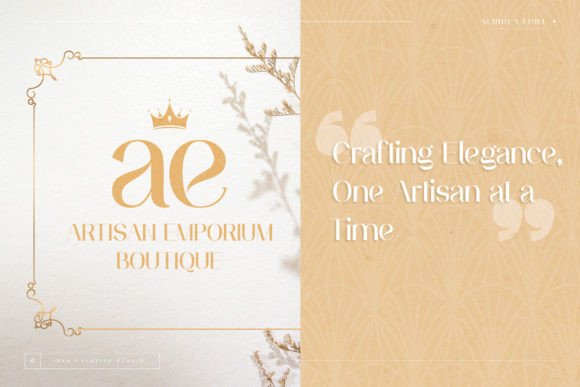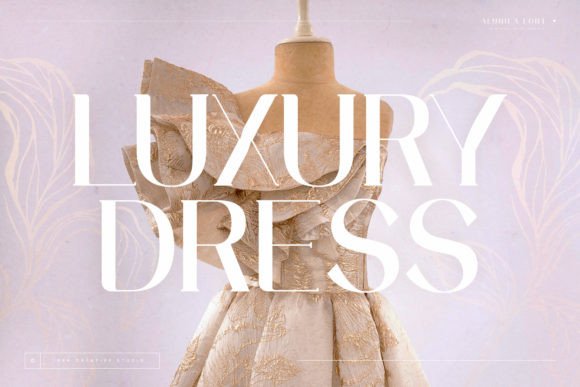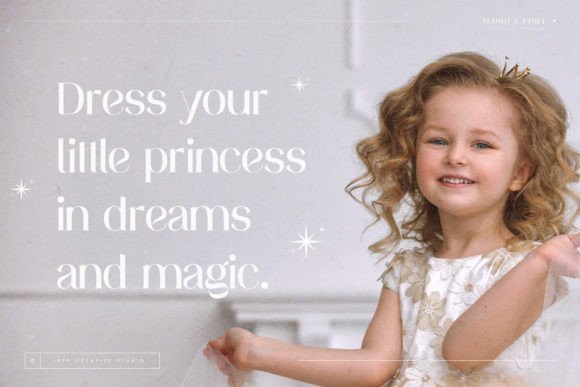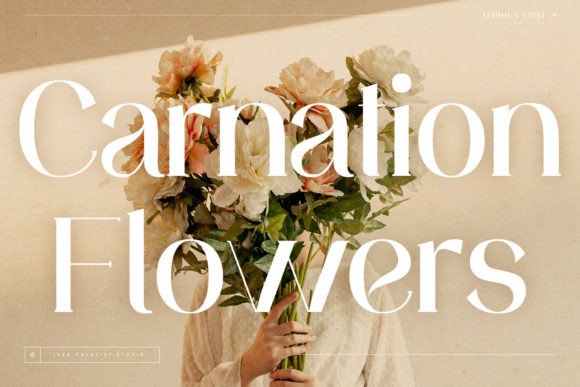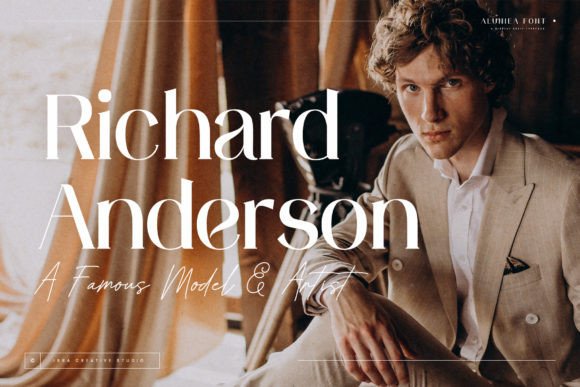
Introduction to Aluniea Font
Have you ever been working on a creative project, pouring your heart and soul into every detail, only to feel like something’s missing? The right font can make all the difference. For designers, finding the perfect typeface is a crucial part of bringing a concept to life. That’s where Aluniea Font comes in – a high-quality, modern serif font that effortlessly blends timeless elegance with contemporary design sensibilities.
With its balanced letterforms, Aluniea Font exudes sophistication and versatility, making it a valuable resource for designers looking to add a touch of sophistication to their work. Whether you’re working on a project with a transparent background or need a font that’s easy to read on a busy design, Aluniea Font is an excellent choice. Plus, with its free download, it’s an accessible design resource for designers of all levels.
Key Features of Aluniea Font
- High-quality font with a transparent background, perfect for creative projects that require a modern and sleek design.
- Designed to be versatile, Aluniea Font is ideal for a wide range of applications, from digital design to print materials.
- Includes a range of characters, including uppercase and lowercase letters, numbers, and punctuation marks, making it a valuable design resource.
- Resolution: Optimized for high-resolution displays, ensuring a crisp and clear appearance on various devices and screen sizes.
- Unique characteristic: Aluniea Font features a unique blend of modern and minimalist elements, making it a standout design resource for creative professionals.
Honest Review: Aluniea Font
As a designer, I’m always on the lookout for high-quality fonts that can elevate my creative projects. Recently, I came across the Aluniea Font, and I must say it’s been a game-changer. Here’s my honest review.
- Unique and elegant design aesthetic that adds a touch of sophistication to any project.
- Transparent background, making it easy to layer and customize.
I’ve used the Aluniea Font for a variety of projects, from logos to social media graphics, and it always looks stunning. The font’s versatility is impressive, and it’s easy to see why it’s gained popularity among designers.
- Not suitable for projects that require a bold, sans-serif font.
- May not be ideal for large body text due to its elegant, cursive nature.
Overall, I’m thoroughly impressed with the Aluniea Font. Its high quality, transparent background, and free download make it an invaluable design resource. While it may have some limitations, it’s a must-have for any creative project that requires a touch of elegance and sophistication.
Experiment with different font sizes, colors, and styles to achieve a unique look for your creative project. You can also combine the Aluniea Font with other design resources, such as images and graphics, to create a visually appealing design.
Common Use Cases for Aluniea Font
The Aluniea Font is a versatile design resource suitable for various creative projects, including logos, brochures, business cards, and social media graphics. Its unique style makes it an excellent choice for designers seeking a high-quality, free download font for their design needs.